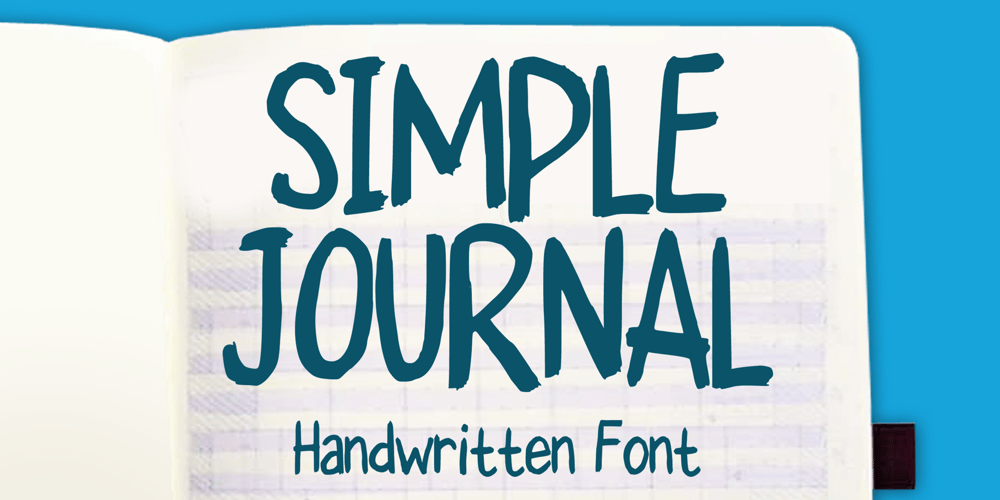
Simple Journal Font Family was designed by Gabriel Valentinus and published by Mvmet. Simple Journal contains 1 styles and family package options. Simple Journal is a cool handwritten font made with real marker brush. You can use it for anything ranging from book notes, journals writing, t-shirts design, book designs, and greeting cards to stickers and posters, packaging designs, or anything that needs a casual touch, it will be your perfect font to pick. Fall in love with its incredibly versatile style, and use it to create lovely designs!